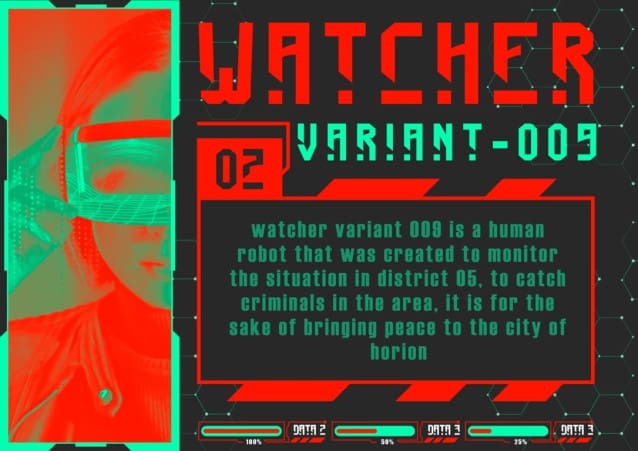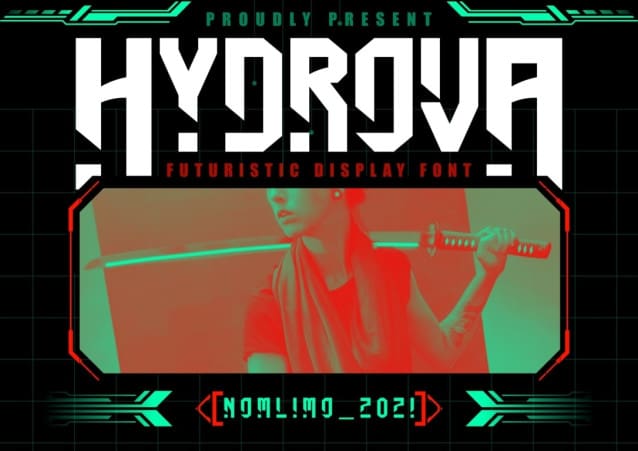
Hydrova Display Font
Hydrova Display Font, Embrace the cyberpunk vibe of Hydrova and let it transport your designs into a world of technological wonders. Elevate your visual creations with the modern and dynamic charm of Hydrova, bringing a touch of sci-fi sophistication to every project you undertake. Unleash the power of Hydrova and watch your designs transcend the boundaries of imagination.